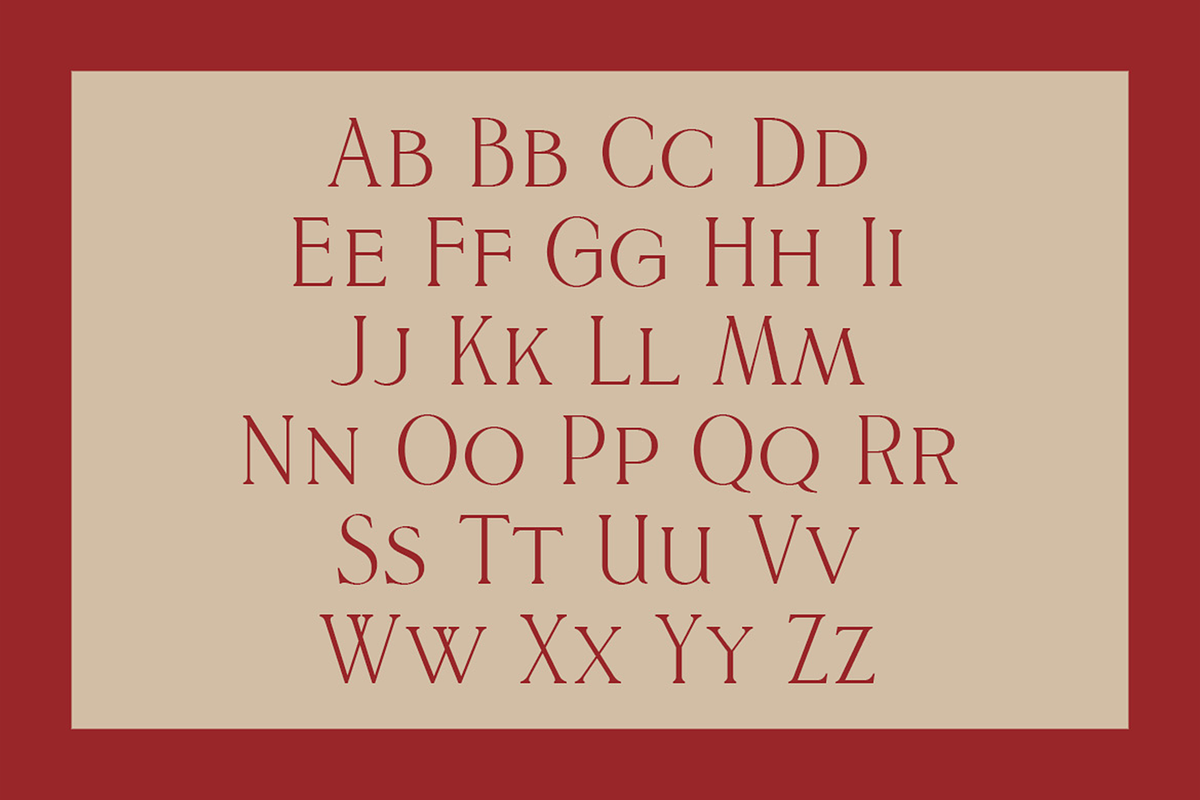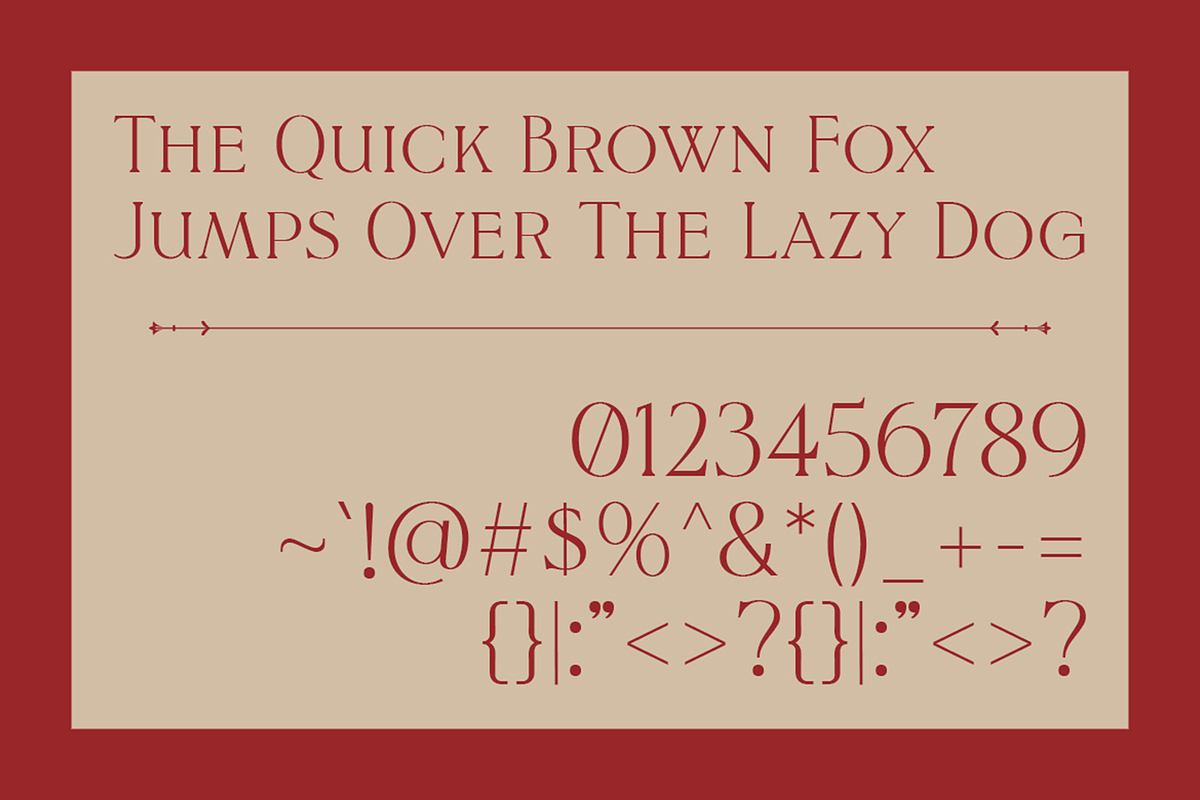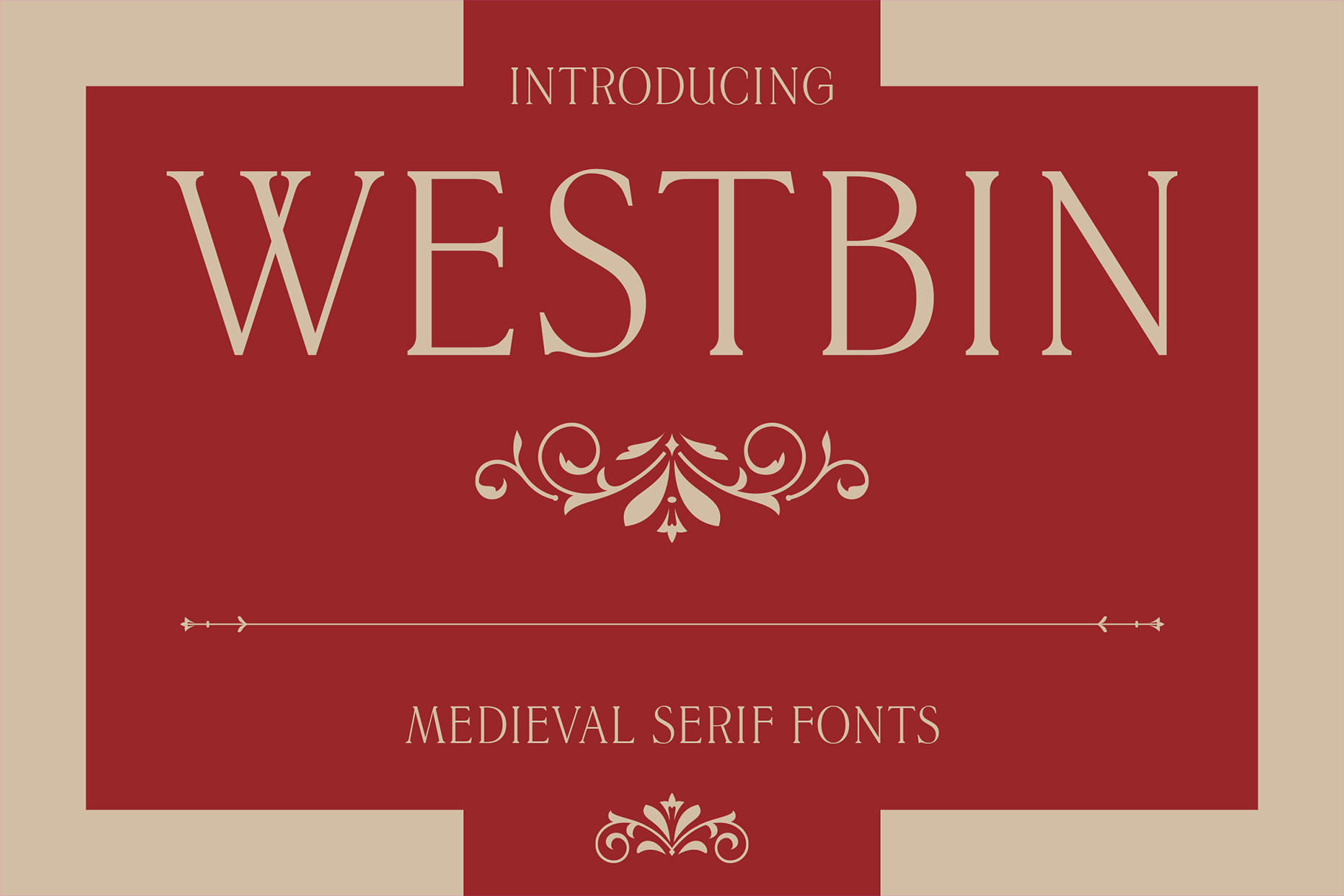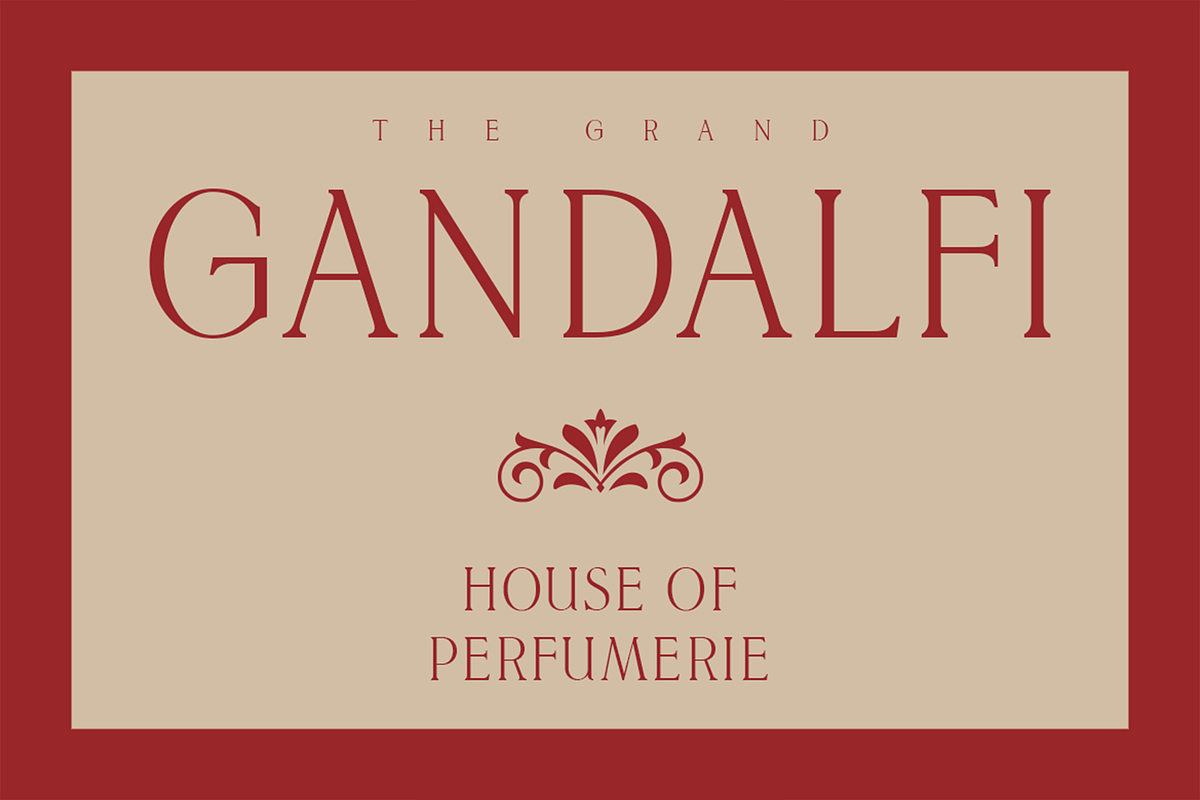
Westbin - Vintage Serif Fonts
Do you long for the elegance of a bygone era? Westbin is not merely a font; it is a sophisticated journey through time. Drawing inspiration from the refinement of historical documents, the captivating allure of vintage advertisements, and the enchanting visuals of classic perfumery, Westbin enhances your designs with a touch of timeless charm.
Elevate your projects with the unmistakable allure of an old era, where every letter tells a story and every word is a work of art. Discover Westbin and transform your creative vision with the perfect blend of history and style.